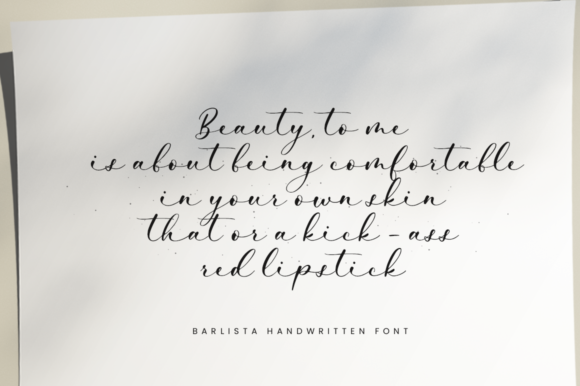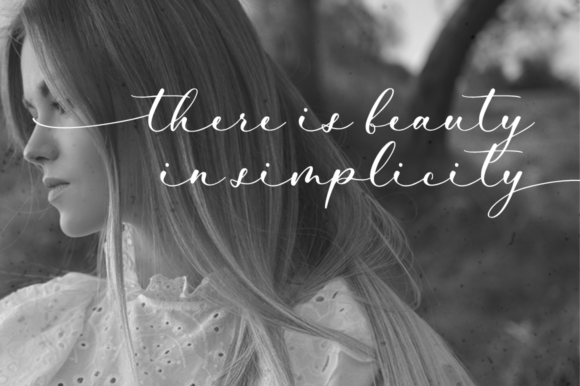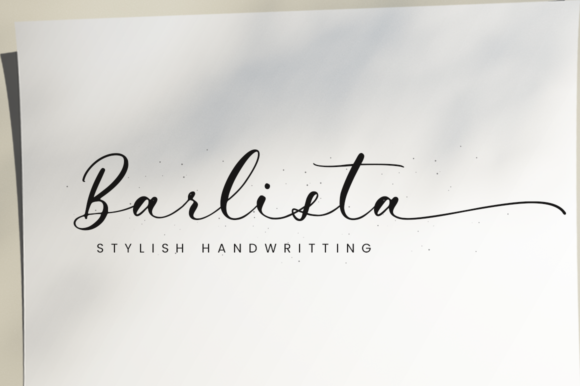
Introduction to Barlista Font
Barlista is a beautiful and delicate calligraphy font.
It is perfect for crafting, branding, invitation, stationery, wedding designs, social media posts, advertisements, product packaging, product designs, label, photography, watermark, special events or anything else you can think of .
Key Features of Barlista Font
Why Choose Barlista Font?
Barlista Font offers exceptional quality and versatility, making it a valuable addition to your design toolkit. Whether you’re creating for personal projects or commercial use, Barlista Font delivers professional results.